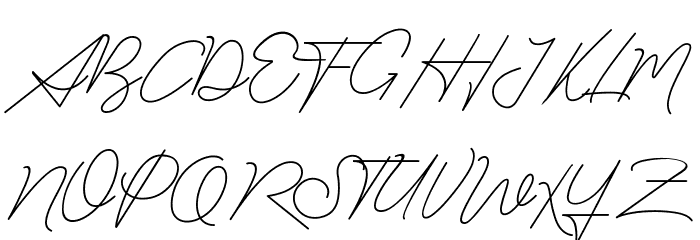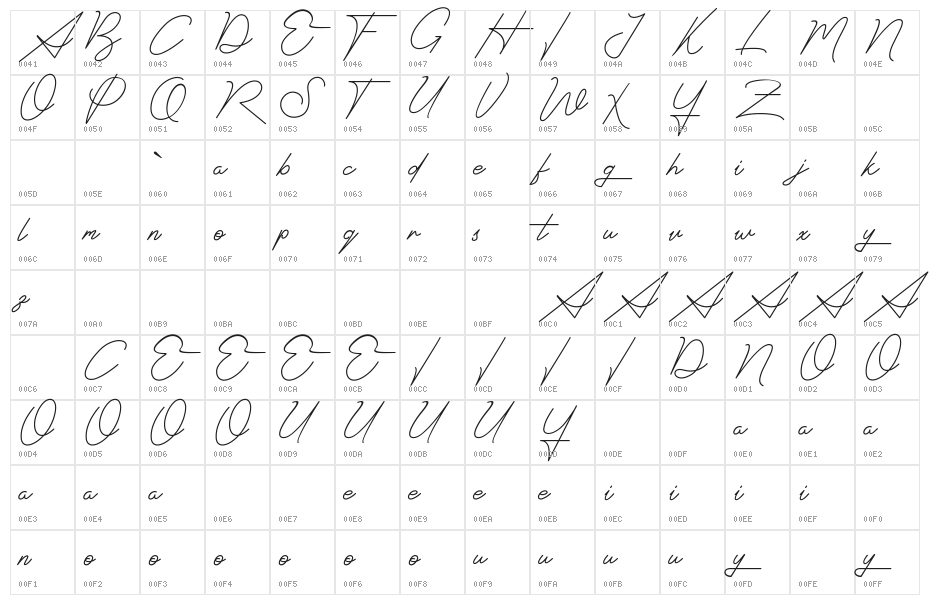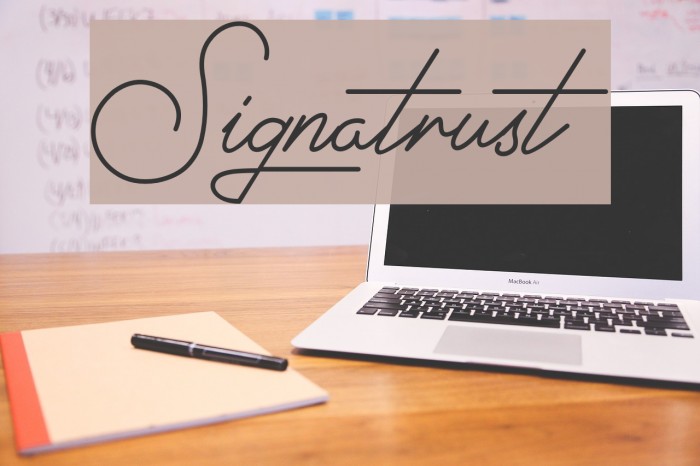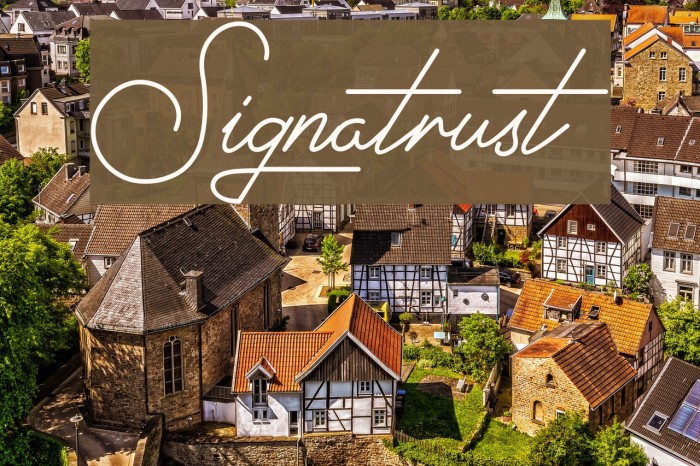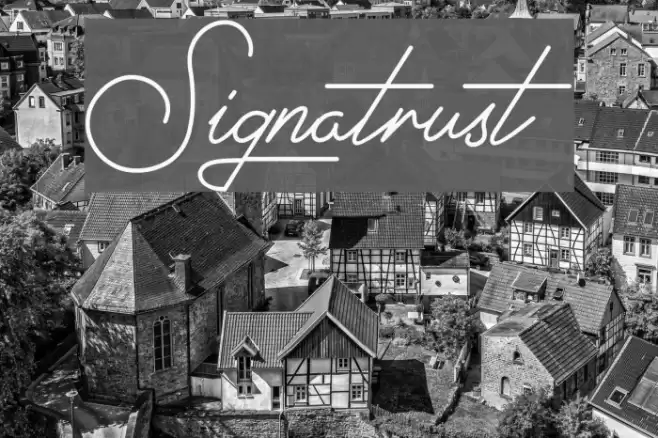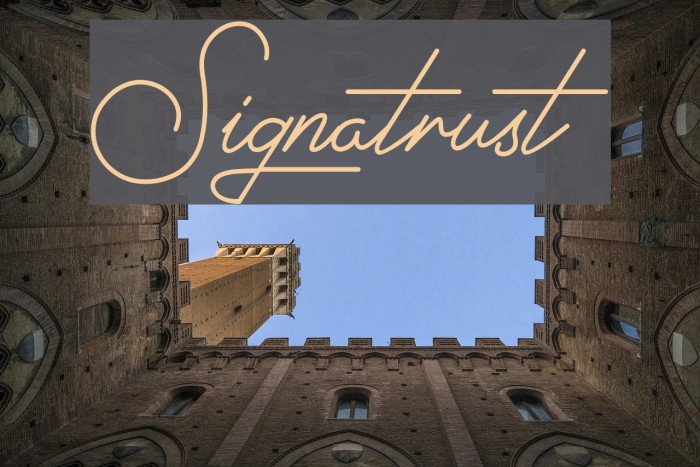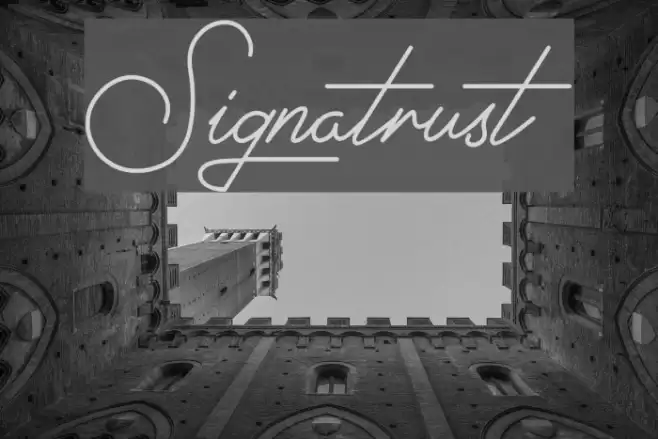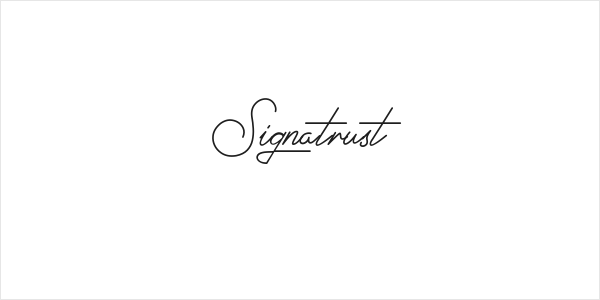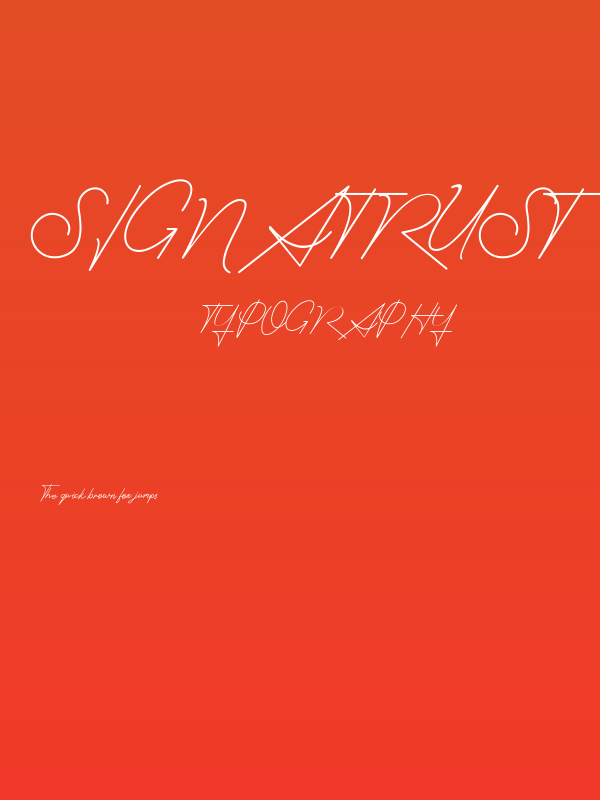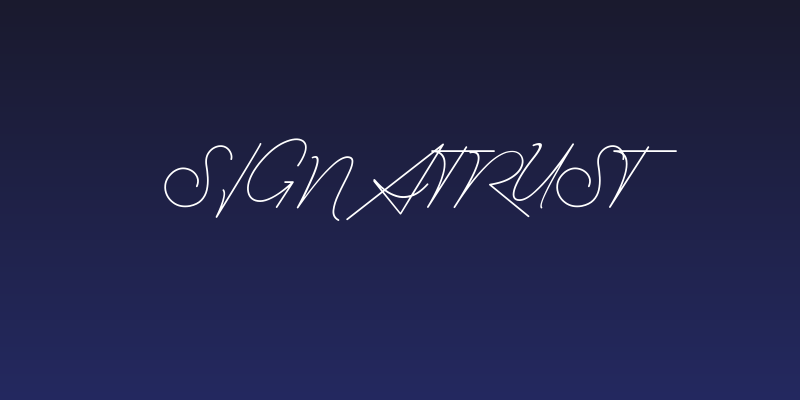
Signatrust Font
Signatrust Description
This font exhibits a sophisticated and elegant handwritten style, characterized by its fluid and continuous strokes that mimic natural handwriting. The uppercase letters are tall and slender, with a slight slant that adds a sense of motion and grace. The lowercase letters maintain a consistent flow, with some characters featuring distinctive loops and curves that enhance the font's organic feel. The overall appearance is refined and stylish, making it suitable for projects that require a personal touch. The font's design is both modern and timeless, offering versatility across various applications.
| Proposed Projects | Ideal for wedding invitations, personal branding, elegant logos, and stylish stationery. |